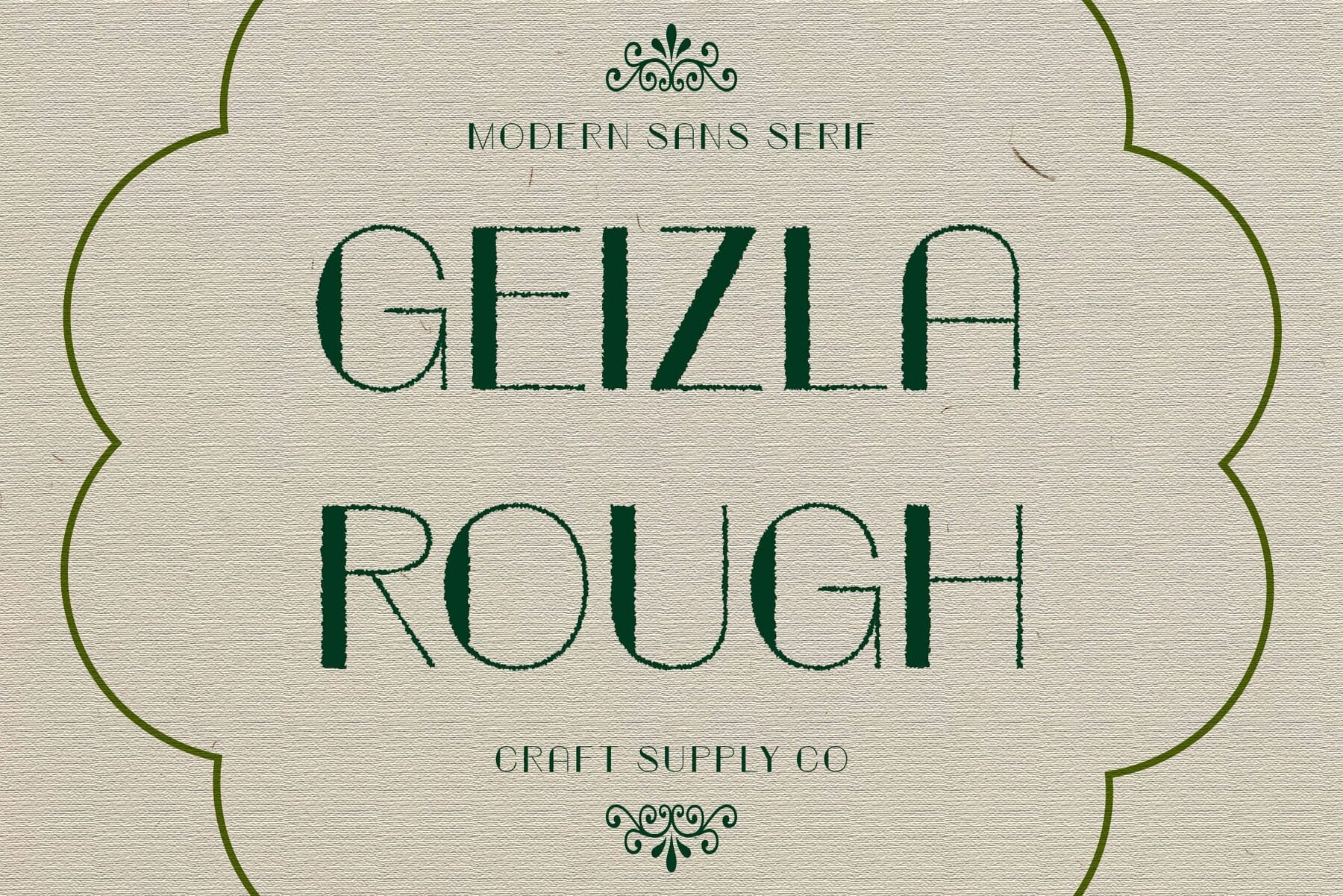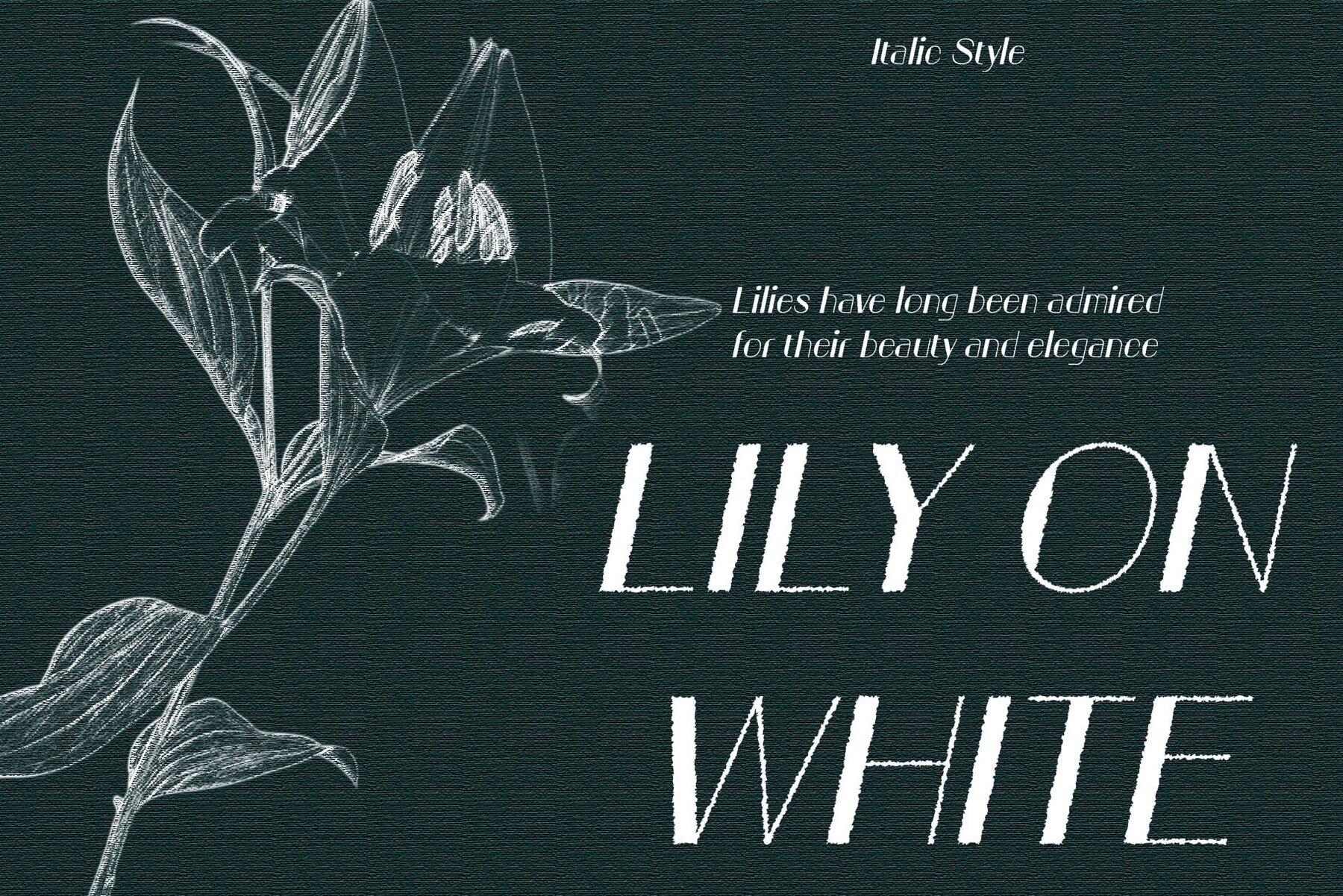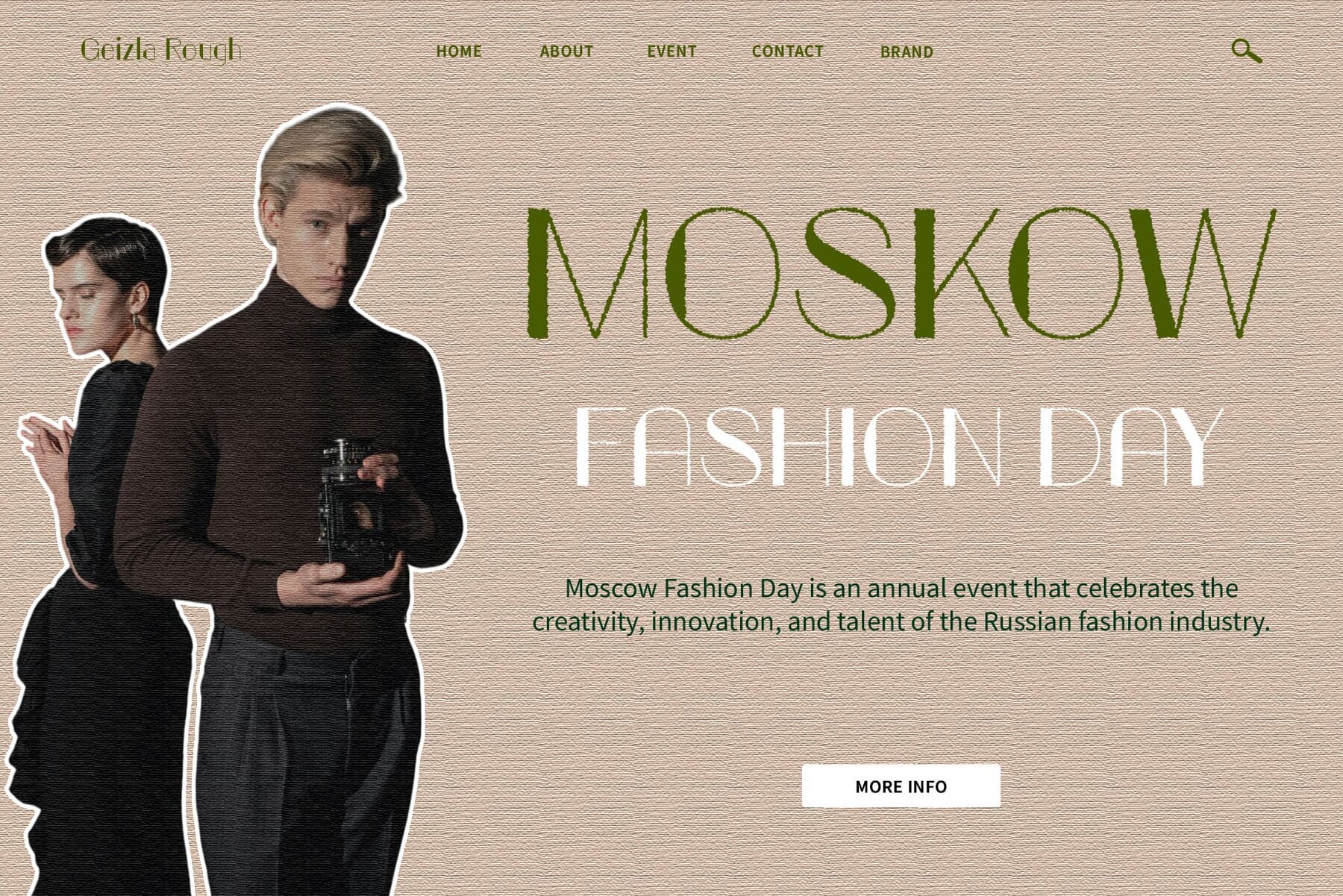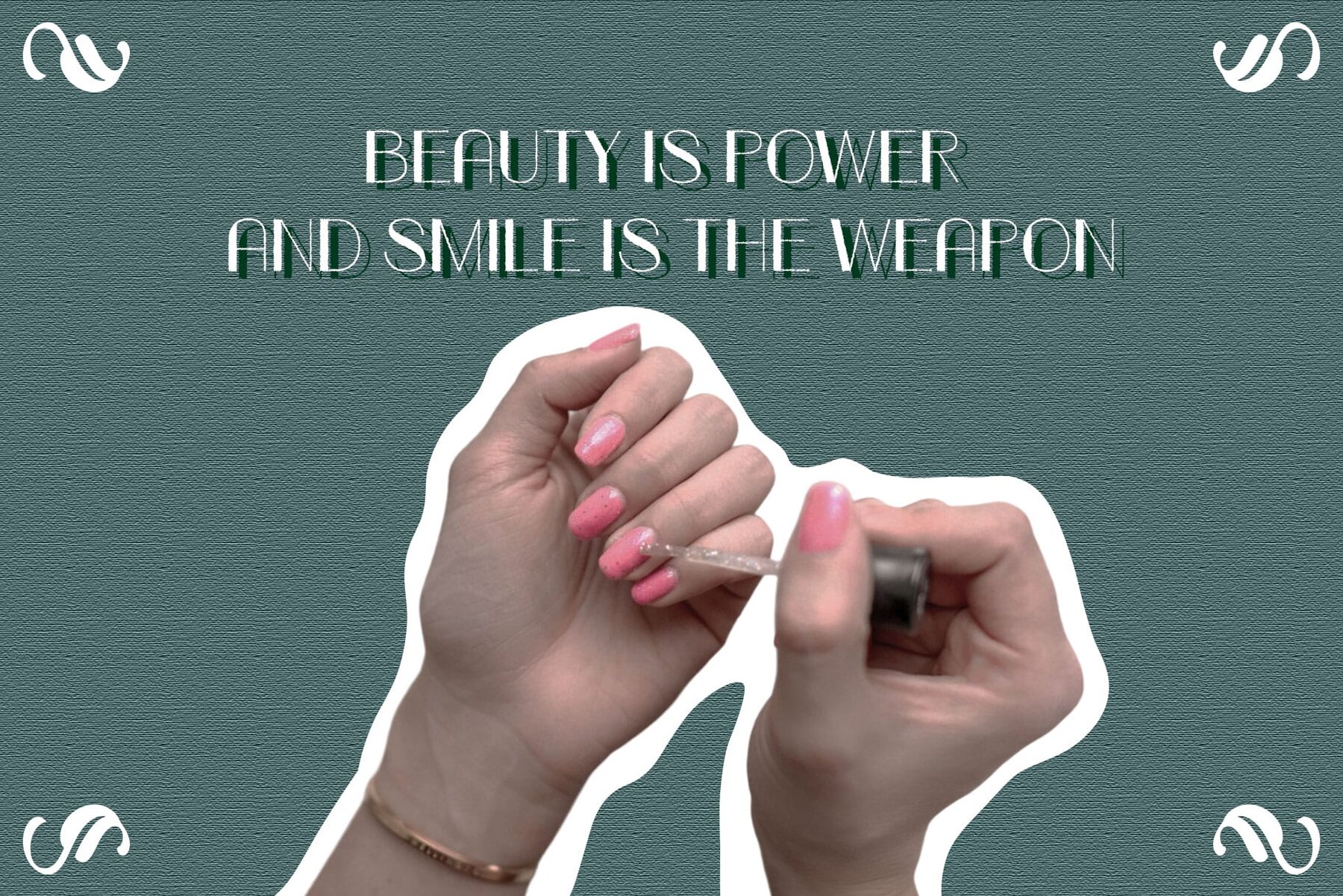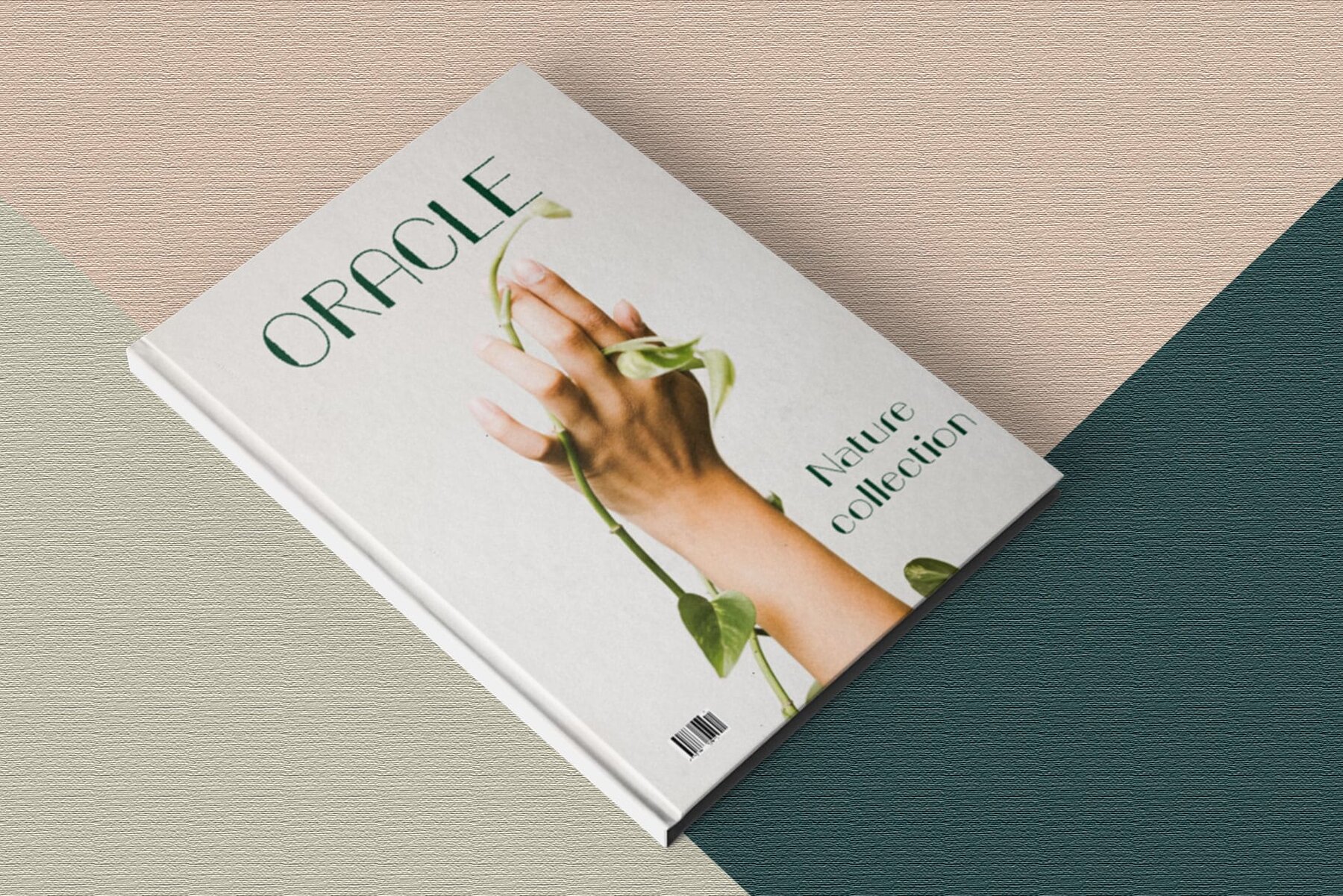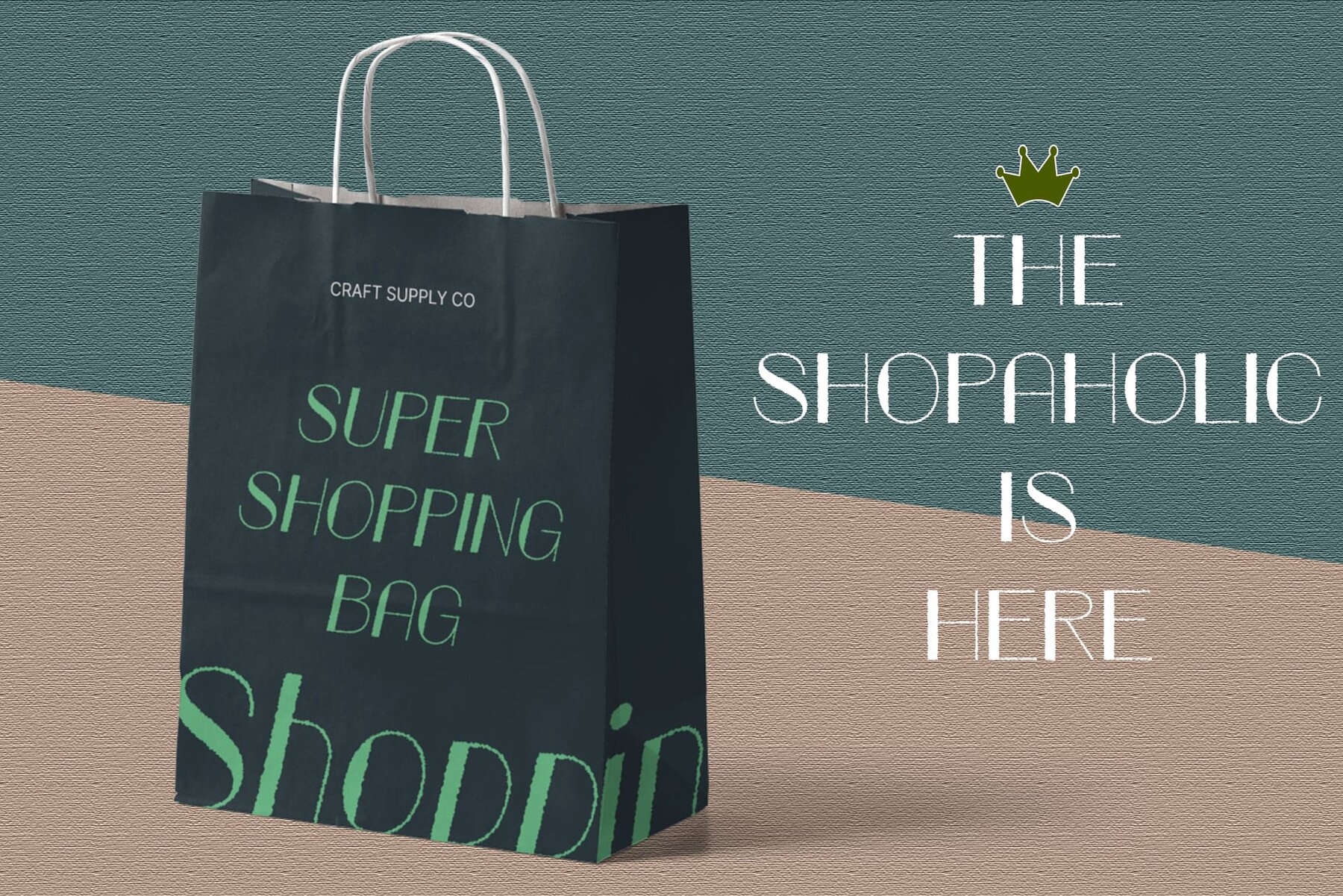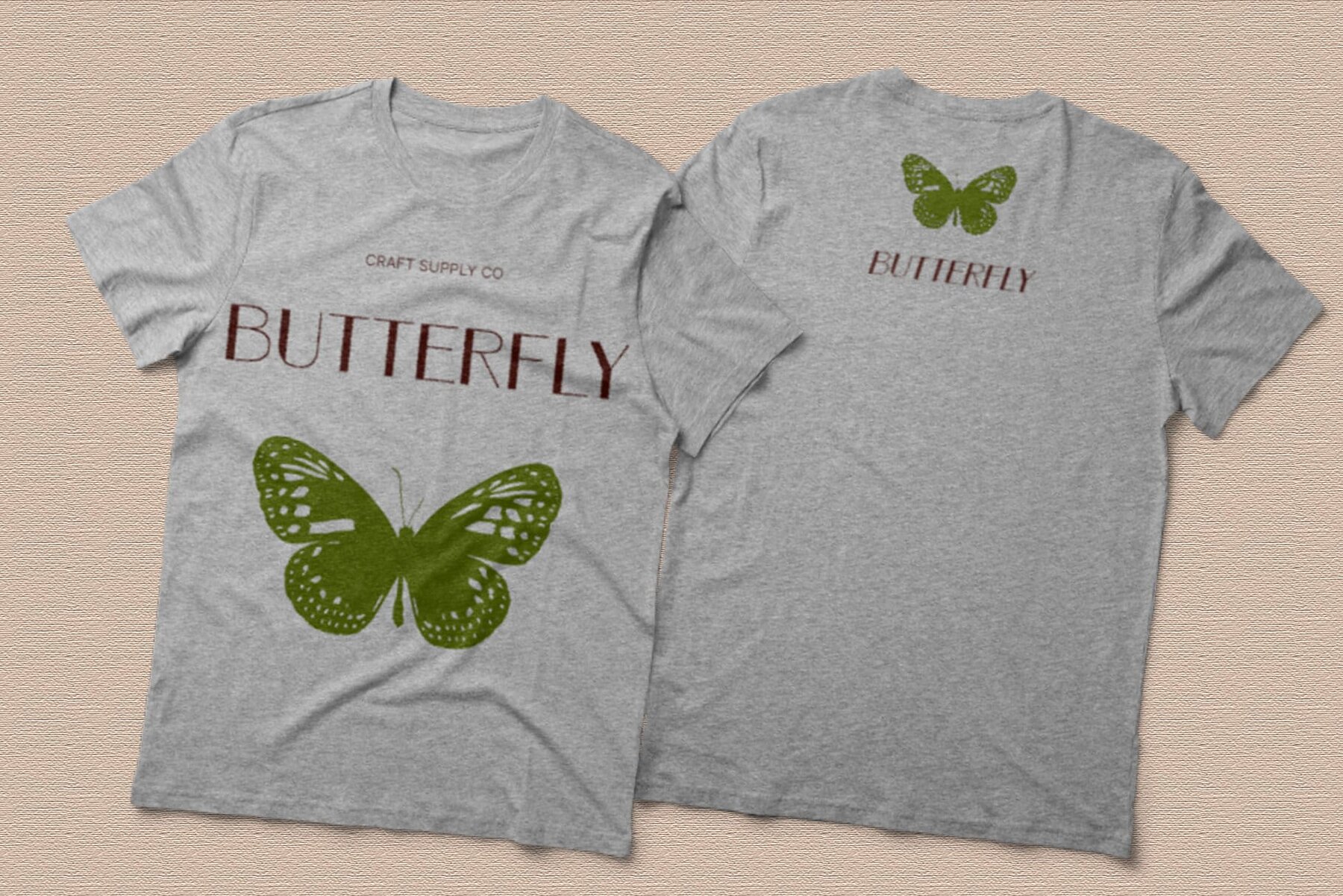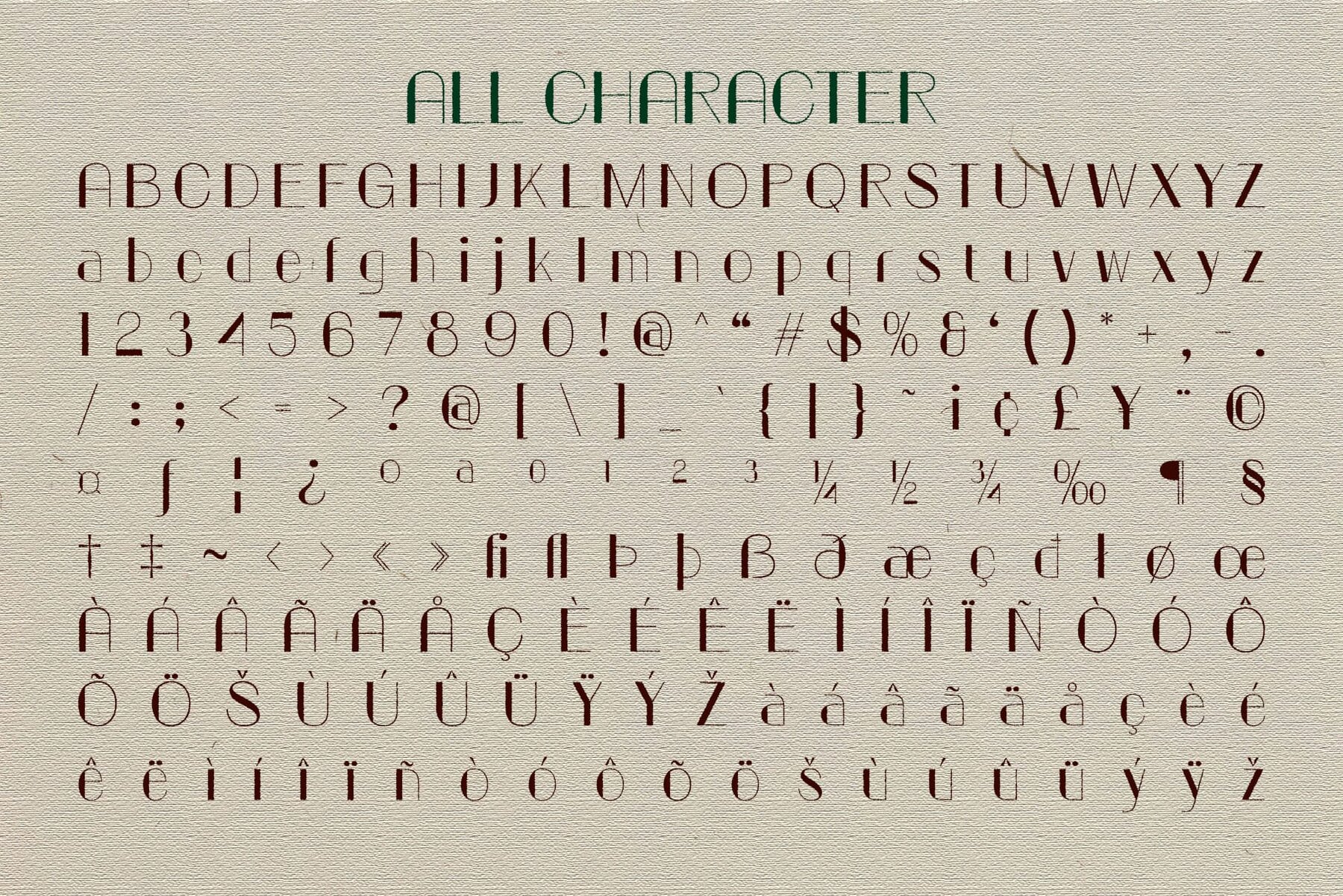
Geizla Rough Font
Geizla Rough takes inspiration from the iconic Art Deco movement, characterized by clean lines, geometric shapes, and a Roaring Twenties sophistication. This vintage display font, with its rough effect, exudes a nostalgic charm that transports viewers back in time. Each character embodies the essence of yesteryears, adding a nostalgic flair to any design project.
The sans serif design of Geizla Rough offers a modern twist to the Art Deco style, combining elegance with contemporary appeal. Its sleek and streamlined appearance makes it ideal for eye-catching displays in posters, signage, branding, and packaging. The font's versatility allows it to seamlessly blend retro sophistication into various design applications. Its rough effect provides character and depth, making it a standout choice for designers aiming to evoke nostalgia and sophistication.
- Uppercase and lowercase characters
- Numerals and punctuation (OpenType Standard)
- Accents (Supports multilingual characters)